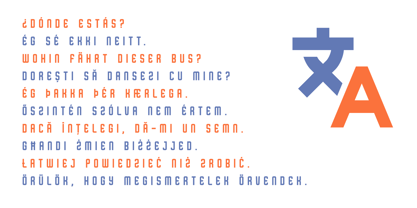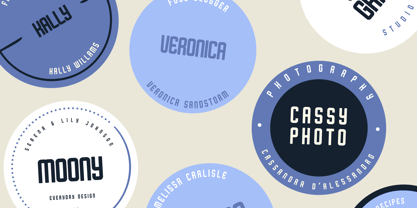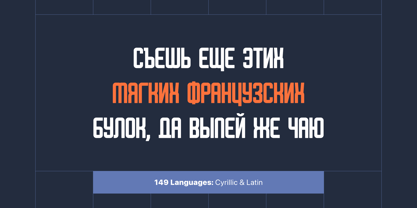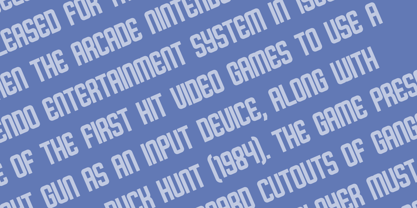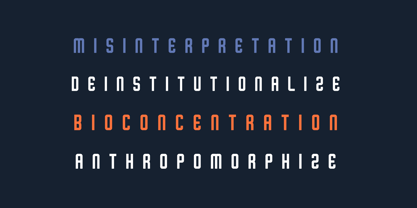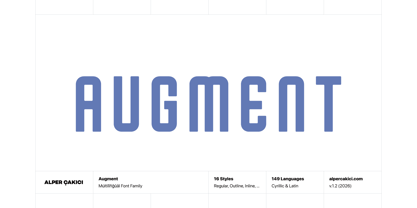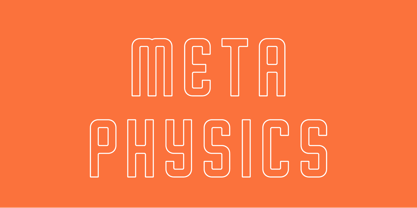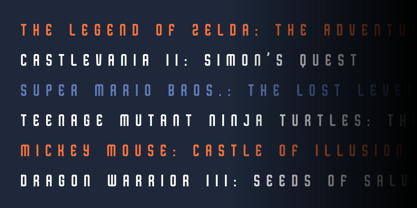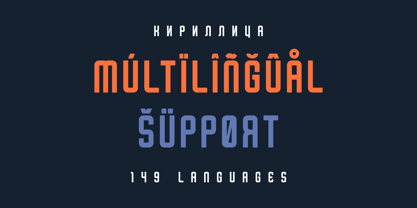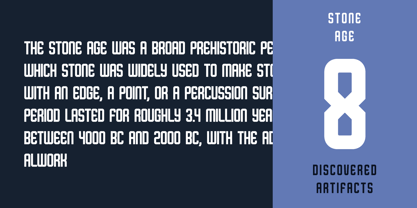
Augment
The Augment Font Family was designed by Alper Çakıcı and published by AlperCakici. Augment contains 1 styles.
Augment is a modern, versatile font with excellent kerning, making it ideal for both digital and print use. It features full support for the Cyrillic language, allowing for seamless multilingual communication. Augment's unique design combines classic proportions with a contemporary feel, making it stand out from other same categories fonts.